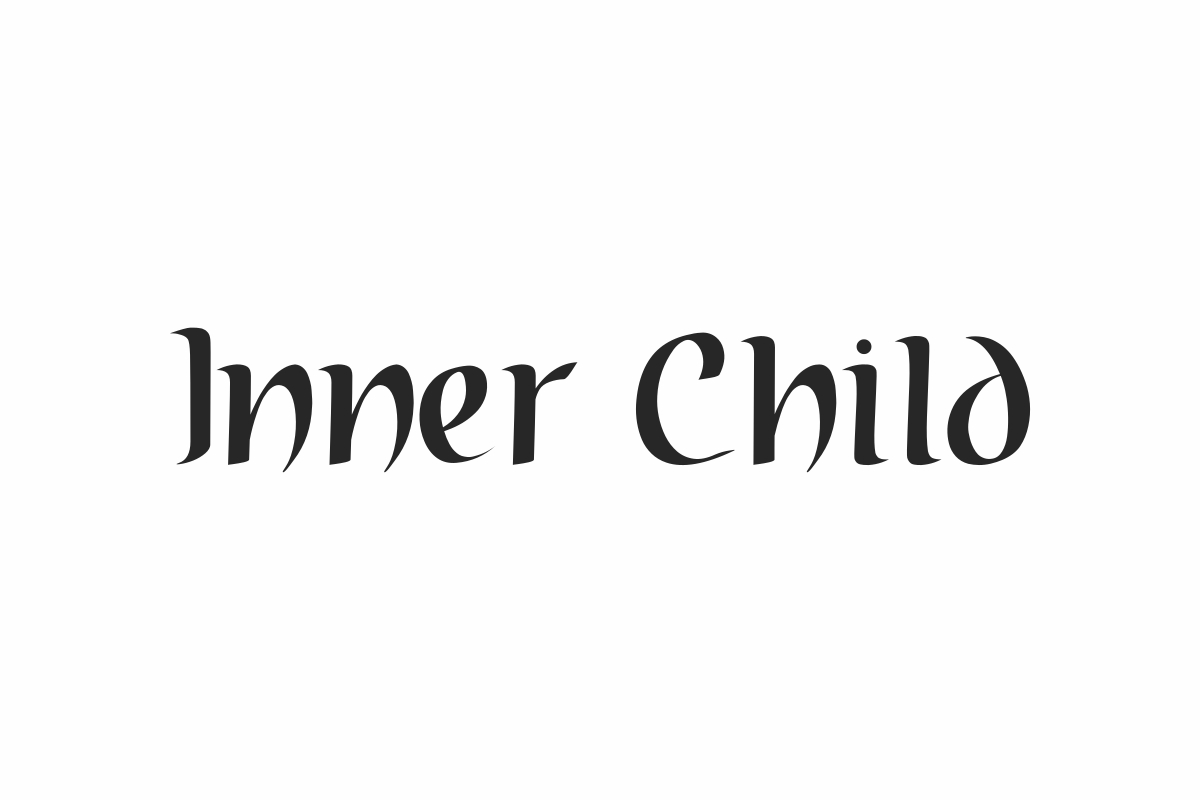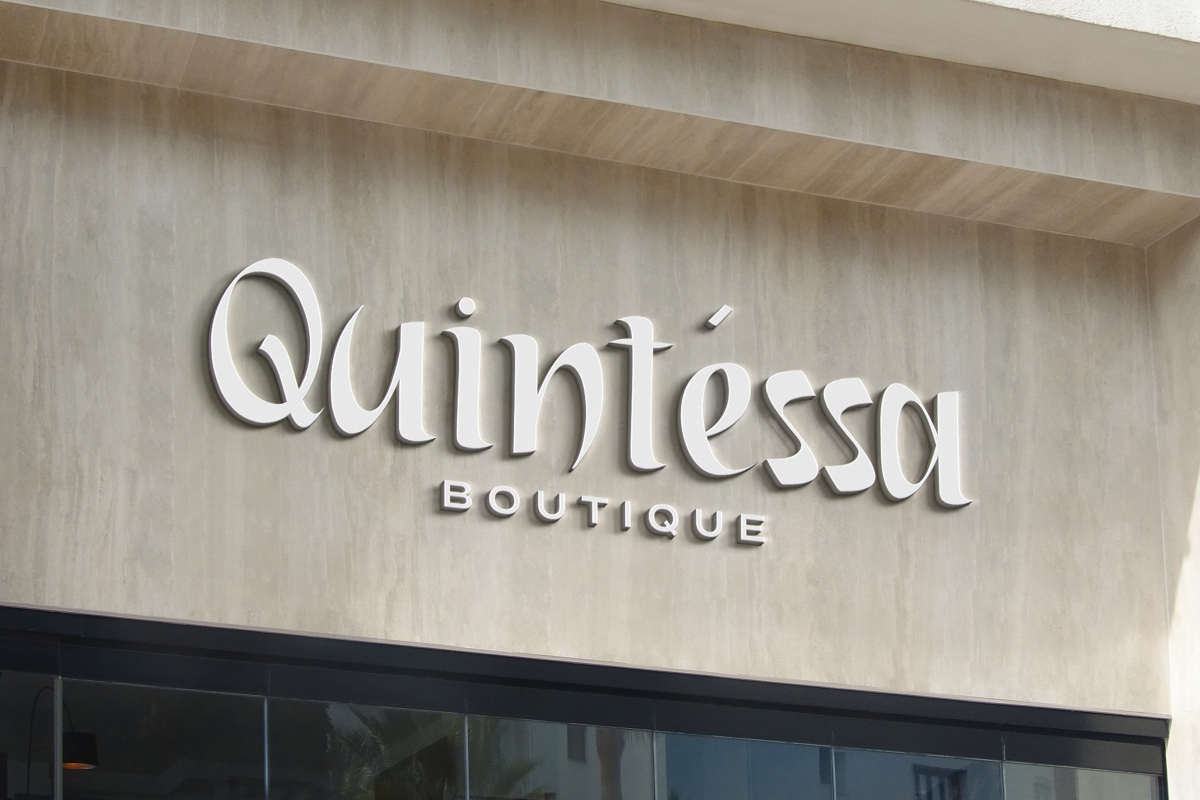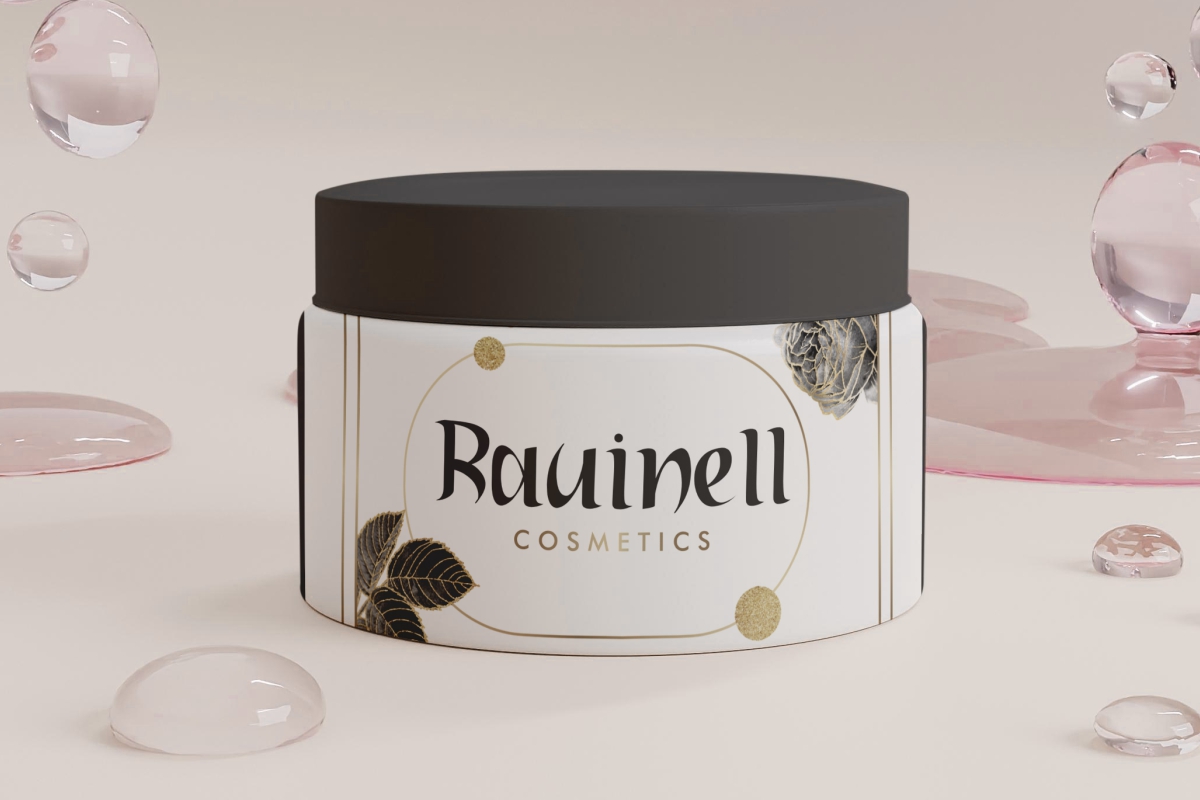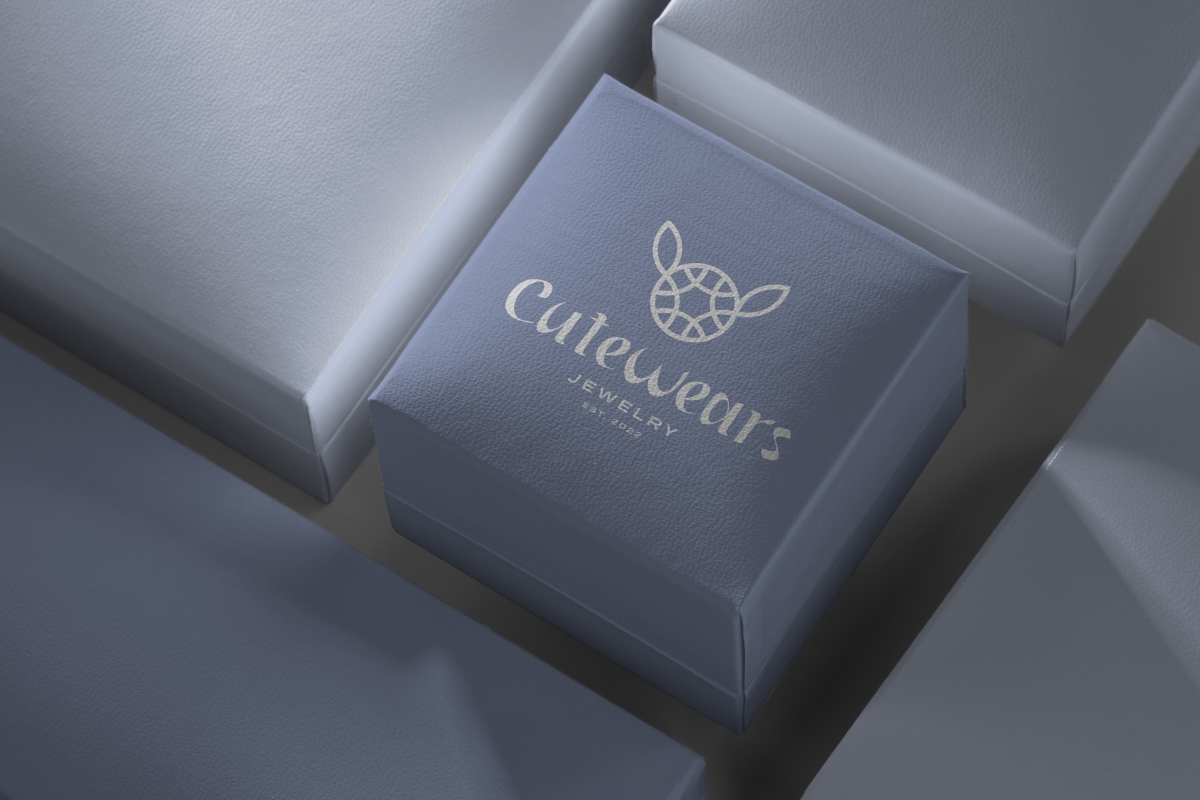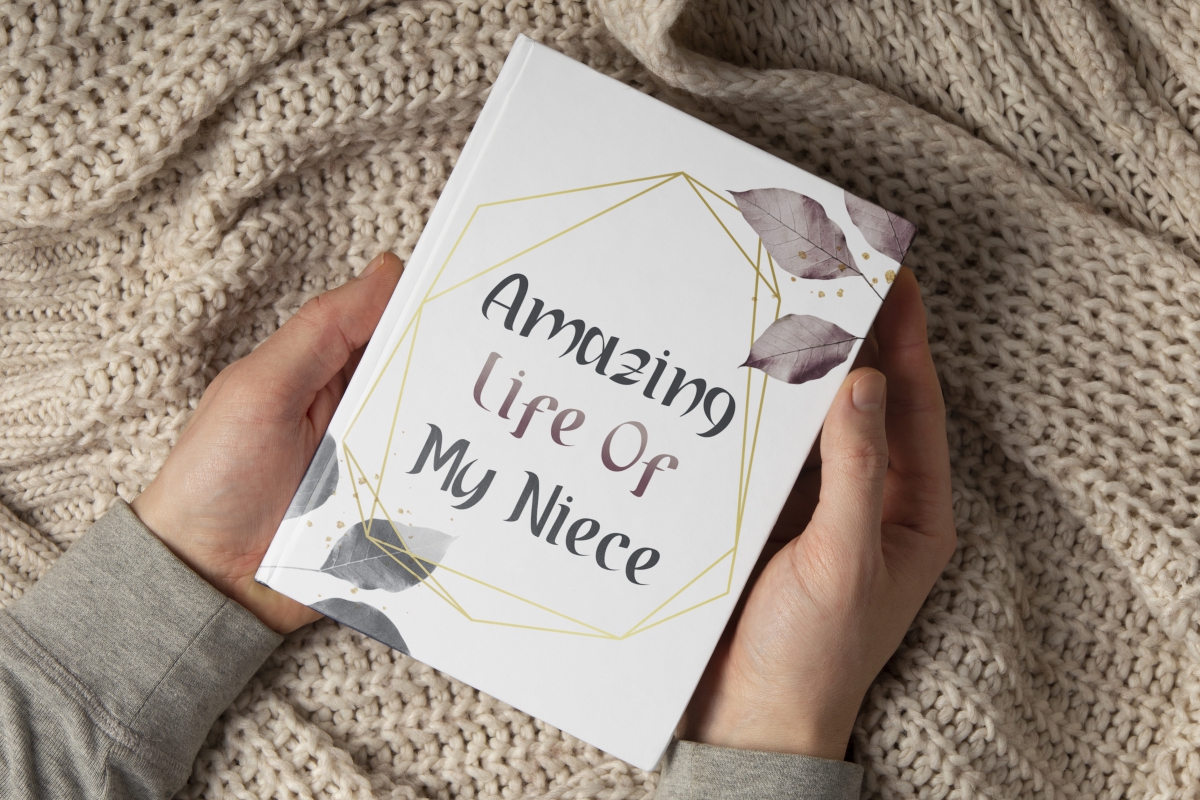
Inner Child Font
Inner Child Display Font
It’s a stylish display font, created by NihStudio. This font has bold lines that will make your writing easy to read and sharpen your perfect design. It will be suitable for industries such as, author, boutique, cosmetic, fashion, jewelry, publishing, and more!